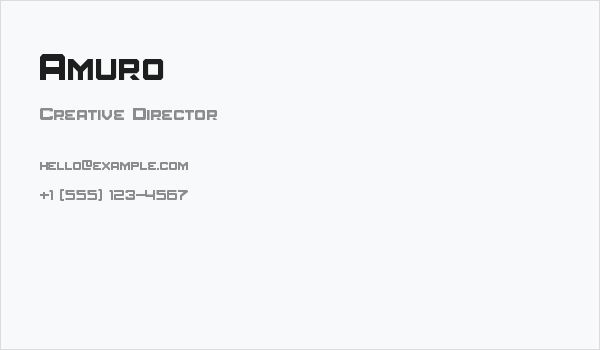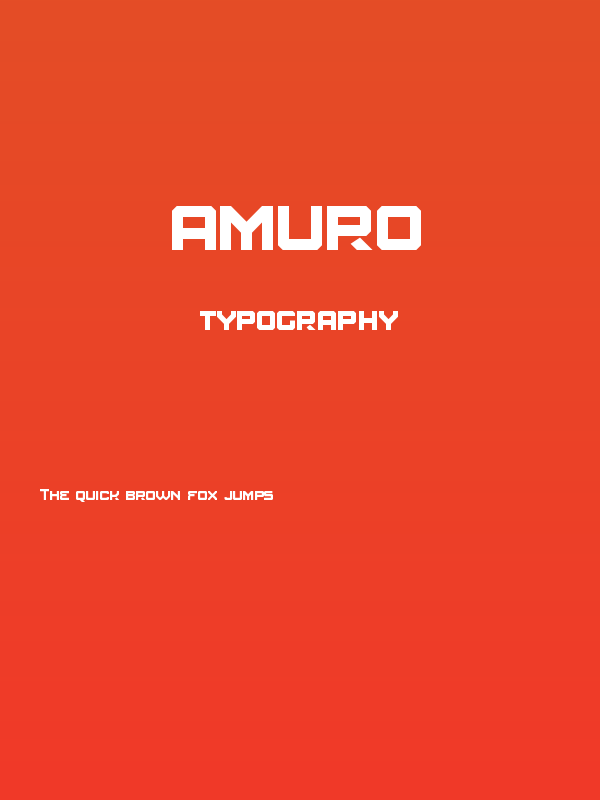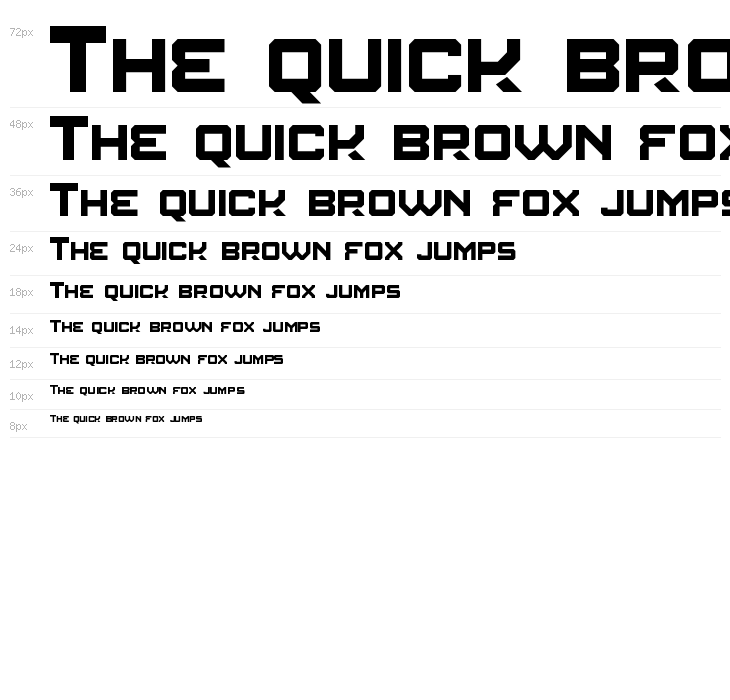
Amuro Font
Amuro Description
This font features a bold, geometric design with a futuristic aesthetic. The characters are constructed with sharp angles and straight lines, giving it a strong, industrial feel. The uppercase letters are particularly striking, with a uniform height and width that create a cohesive look. The numbers and special characters maintain the same angular style, ensuring consistency across all glyphs. This font is ideal for projects that require a modern, edgy appearance, such as technology branding, sci-fi themed designs, or video game interfaces. Its unique style makes it stand out, while still being legible and functional.
Proposed ProjectsIdeal for technology branding, sci-fi designs, and video game interfaces.